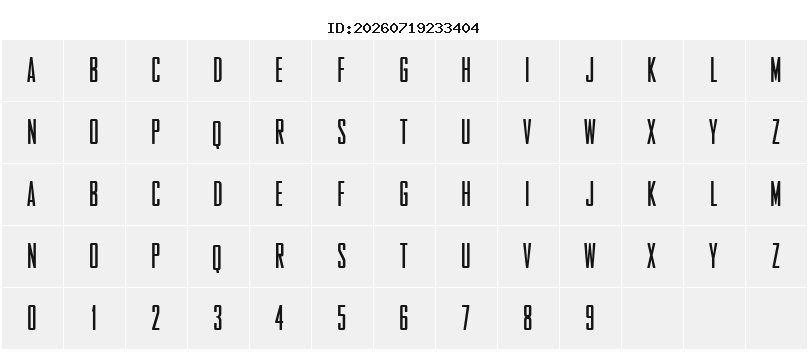
• Font Name: Entschuldigung
• Designer: HENRIavecunK
• Description: Entschuldigung! Regular is a font designed by HENRIavecunK in 2016.
Entschuldigung.ttf is a modern, elegant sans-serif font designed for ultimate readability and visual harmony. Perfect for branding, headlines, web design, and print materials.